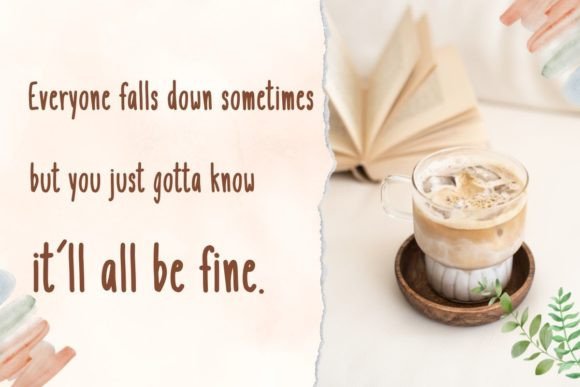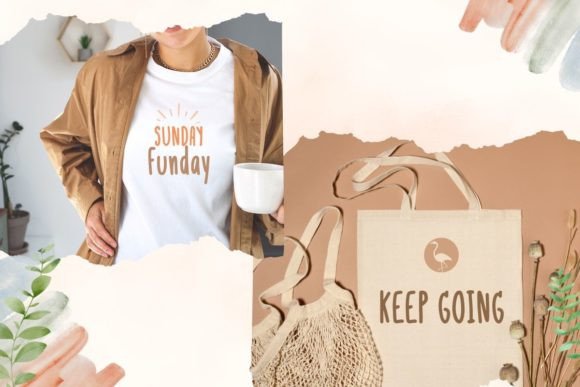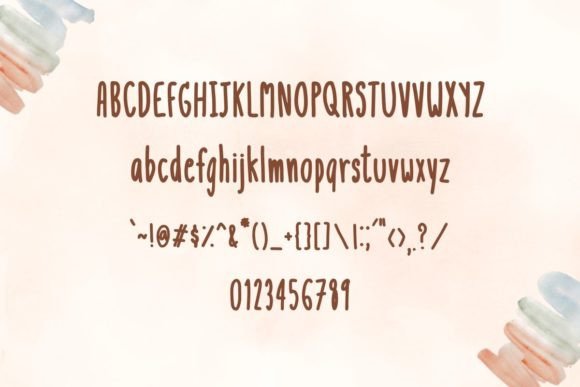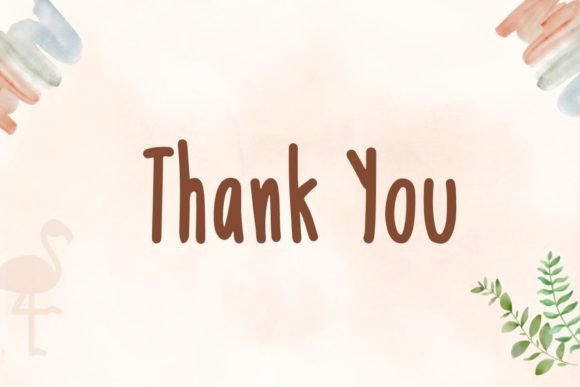
The Flamingo Font: A Creative Game-Changer for Designers and Crafters
Have you ever been in the middle of a design project, and suddenly, you’re stuck on finding the perfect font? I recall a recent experience where I was working on a client’s custom mug design, and I just couldn’t find a font that captured the playful, whimsical vibe they wanted. That’s when I stumbled upon the Flamingo Font, and let me tell you, it’s been a game-changer ever since!
What Makes Flamingo Font So Special?
Flamingo is a tall and skinny handwritten font that has quickly become a favorite among designers, crafters, and creative hobbyists. Its versatility makes it perfect for a wide range of projects, including svg designs, mug designs, pottery, shirts, hats, tote bags, card making, wall art, interior prints, and many more.
An Honest Review: The Good and the Quirks
What I Love About Flamingo Font ✨
- 💃 **Unique and eye-catching design**: Flamingo Font stands out from more traditional fonts, adding a touch of personality to any project.
- ✅ **Highly versatile**: From digital designs to print materials, Flamingo Font adapts seamlessly to various mediums.
- 💕 **Easy to read**: Despite its slender appearance, Flamingo Font remains surprisingly legible, making it perfect for both headlines and body text.
- ⚠️ **Limited use in formal contexts**: Due to its playful nature, Flamingo Font might not be the best choice for formal documents or professional branding.
- 🤔 **Requires careful kerning**: As with any handwritten font, some manual kerning might be necessary to achieve optimal results.
- Take advantage of OpenType features, such as glyphs and stylistic alternates, to add variety to your text.
The Inspiration Behind Flamingo Font
While the actual designer of Flamingo Font remains a mystery, it’s clear that the inspiration came from a passion for handwriting and a desire to create a font that’s both beautiful and functional. Imagine a sunny day at the beach, watching flamingos wade through the shallow waters – the elegance and uniqueness of these creatures likely influenced the design of this font.
Q: What type of projects is Flamingo Font best suited for?
Flamingo Font is incredibly versatile and can be used for a wide range of projects, including svg designs, mug designs, pottery, apparel, and more.
Q: Is Flamingo Font easy to read?
Yes, despite its slender appearance, Flamingo Font is surprisingly legible, making it suitable for both headlines and body text.
Q: Does Flamingo Font support OpenType features?
Yes, Flamingo Font likely supports OpenType features such as glyphs and stylistic alternates, adding to its versatility and creative potential.